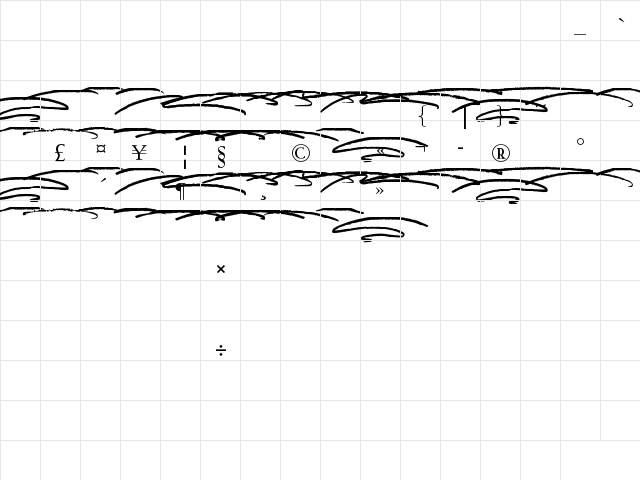
Everything RISES Swashes Regular
Design Context for Everything RISES Swashes Typeface
Everything RISES Swashes flows with the natural rhythm of handwritten lettering, making it ideal for designs that call for warmth and personal expression. Its slender proportions lend an understated elegance to any composition.
Font Pairing: Combine Everything RISES Swashes with a simple geometric sans for maximum contrast — the tension between flowing curves and clean structure is a classic typographic pairing.
Pro Tip: Use Everything RISES Swashes for short runs of text — names, titles, or taglines. Extended body copy in script faces tires the eye quickly.